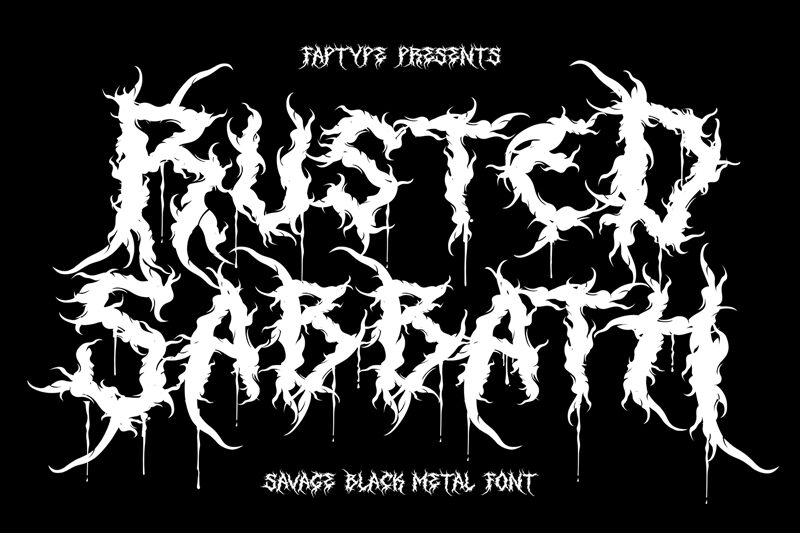
Rusted Sabbath font by Ferry Ardana Putra of Faptype is an aggressive gothic font with intricate detailing all over its design. It mixes elements from horror aesthetics with those from blackletter typography making for a unique and sinister look. All the letters show tiny yet impactful decorations which make the overall text design unmissable. The hatched effects, irregular letter shapes, and unbalanced elements all contribute to this intimidating vibe leaving the reader with an unusual sensation.
This free gothic font succeeds when used in short text sources such as poster titles for concerts and festivals, branding projects for fashion collections, movie title designs, CD/DVD covers, book covers and even product packaging. Any special event invitation card designed using it will turn heads as will physical apparel or merchandise that has the printed typography embedded onto it.